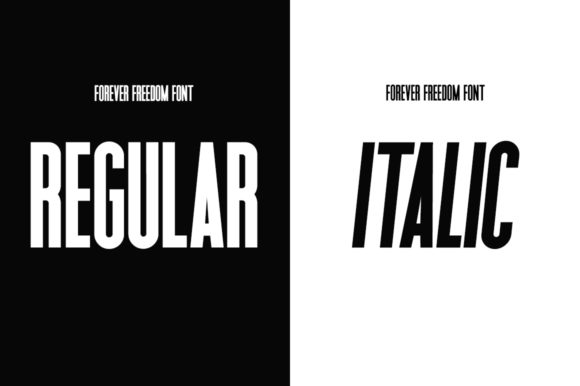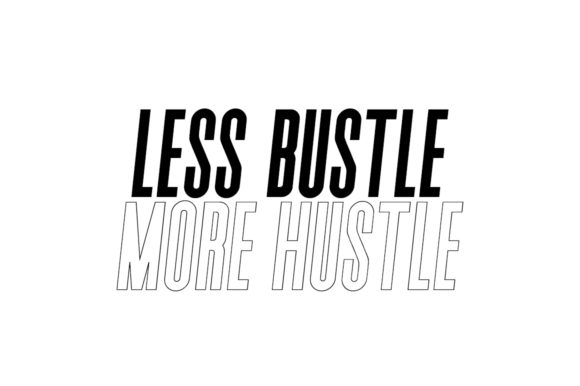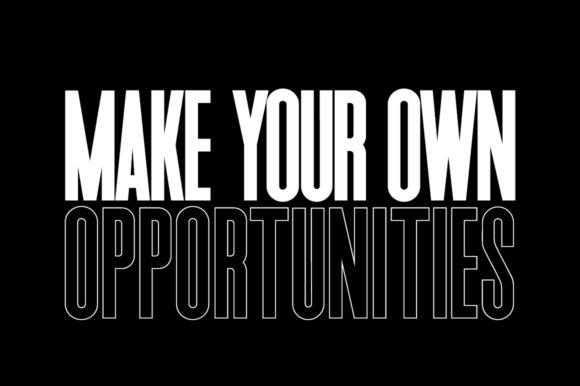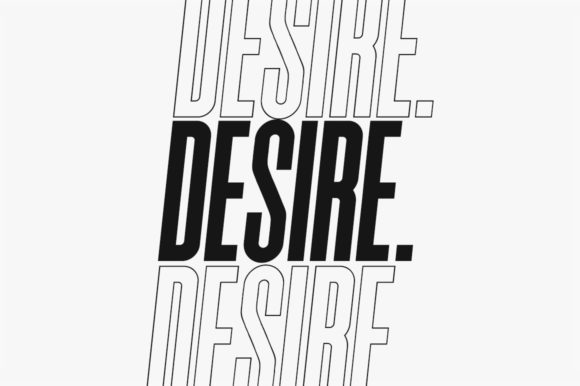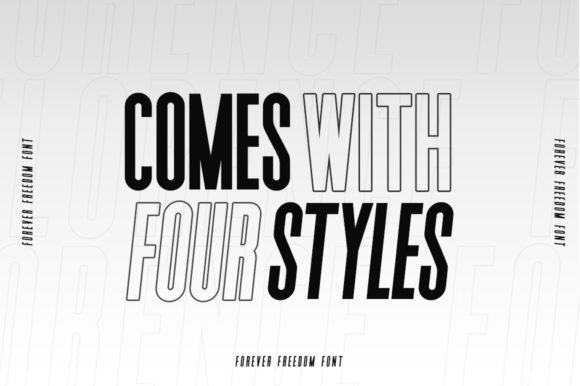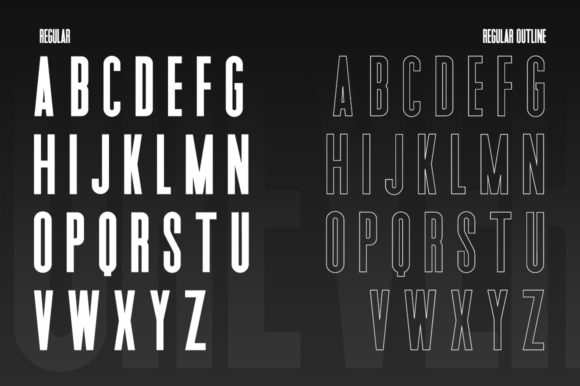
Introduction to Forever Freedom Font
Forever Freedom is a bold and strikingly modern font including four awesome styles that combine perfectly together.
The regular, italic and outline versions are a wonderful way to spice up your design cohesively .